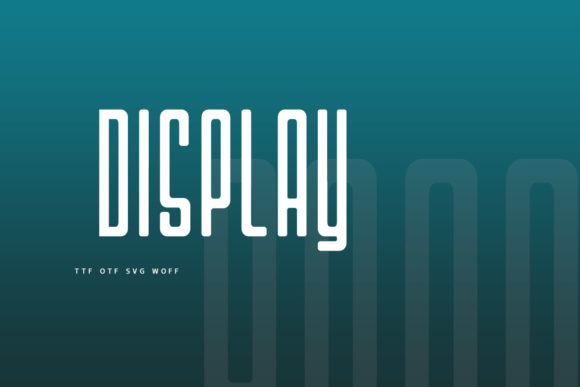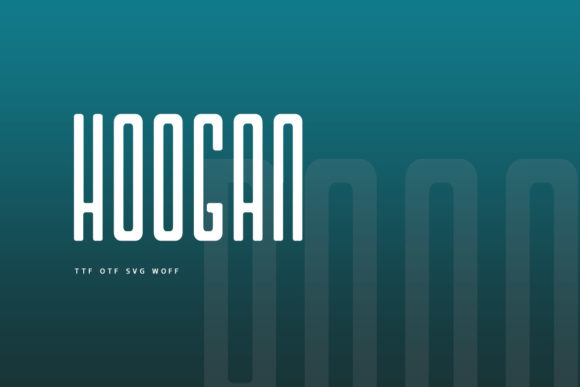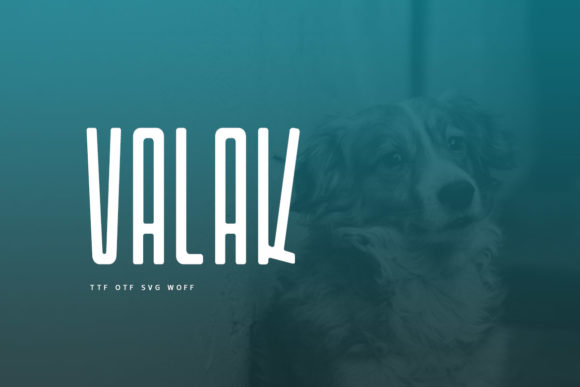
Introducing Bonorum Font: The Ultimate Minimalist Display Font
Are you a designer or crafter looking for a font that can elevate your creative projects to the next level? Look no further than Bonorum Font, a stunning minimalist display font that is sure to impress. With its natural and unique style, Bonorum Font is incredibly versatile and can be used for a wide range of designs, from modern logos and branding to craft projects and digital art.
The Beauty of Minimalism
Bonorum Font is a masterclass in minimalist design. Its clean lines, simple shapes, and elegant curves make it a beautiful addition to any design project. The font’s minimalist style ensures that it remains highly legible, even at large sizes, making it perfect for headlines, titles, and other display text.
A Font for Every Imagination
The true power of Bonorum Font lies in its versatility. Its unique style makes it incredibly fitting for a large pool of designs, and the only limit is your imagination! Whether you’re creating a modern logo, a craft project, or a digital art piece, Bonorum Font is the perfect choice. Its natural and elegant style ensures that it will complement any design, while its bold and eye-catching appearance makes it perfect for grabbing attention.
Bonorum Font is a must-have for designers and crafters who want to add a touch of elegance and sophistication to their projects. Its minimalist style makes it perfect for a wide range of applications, from:
- Modern logos and branding
- Craft projects, such as handmade cards and invitations
- Digital art and illustrations
- Print design, including posters, flyers, and brochures
Key Features of Bonorum Font
So, what makes Bonorum Font so special? Here are just a few of its key features:
- Minimalist design with clean lines and simple shapes
- Unique and elegant style
- Highly legible, even at large sizes
- Perfect for headlines, titles, and display text
- Incredibly versatile and adaptable
Tips and Tricks for Getting the Most out of Bonorum Font
Here are a few tips and tricks for getting the most out of Bonorum Font:
- Experiment with different sizes and styles to find the perfect look for your project
- Use Bonorum Font in combination with other fonts to create a unique and eye-catching design
- Don’t be afraid to get creative and try new things – Bonorum Font is incredibly versatile!
In conclusion, Bonorum Font is a stunning minimalist display font that is perfect for designers and crafters who want to add a touch of elegance and sophistication to their projects. Its natural and unique style makes it incredibly versatile, and the only limit is your imagination! With its clean lines, simple shapes, and elegant curves, Bonorum Font is sure to impress. So why wait? Download Bonorum Font today and start creating something amazing!